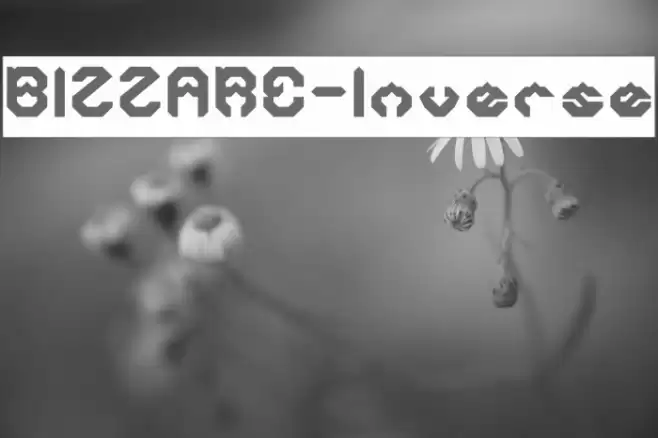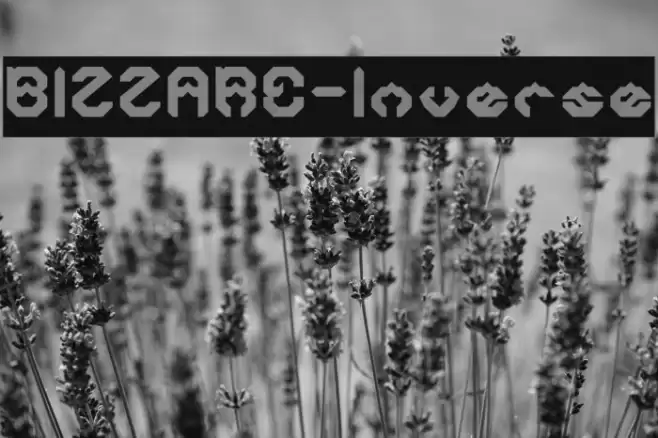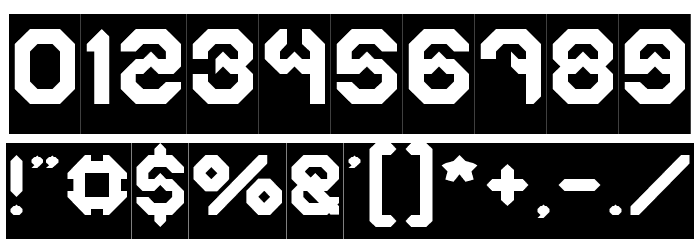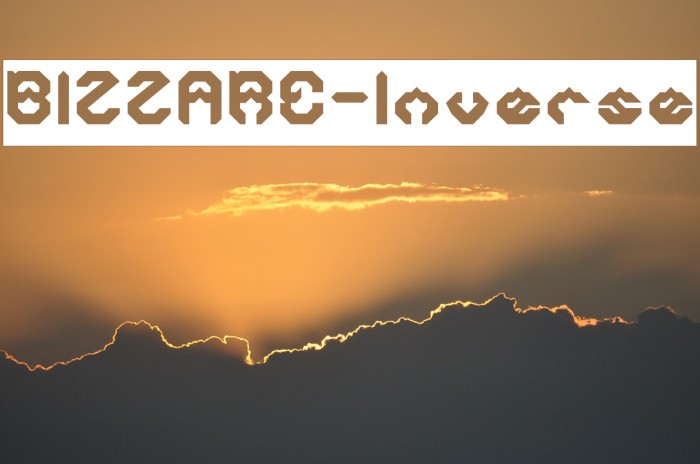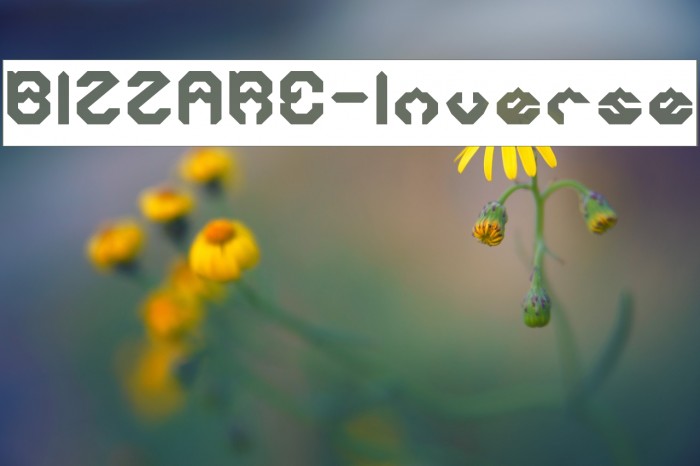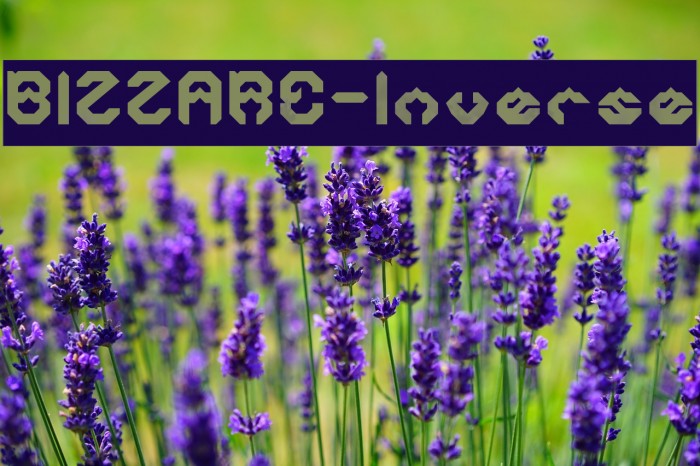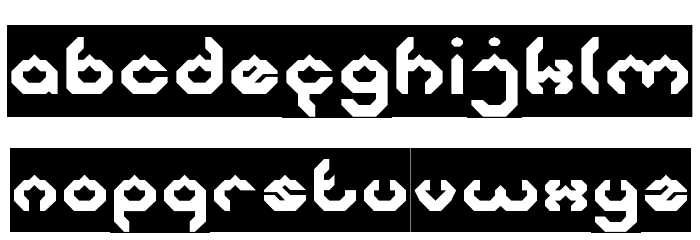
BIZZARE-Inverse Font
BIZZARE-Inverse Description
This font features a bold, geometric design with sharp angles and a blocky appearance. The characters are constructed with a consistent thickness, creating a uniform and cohesive look. The uppercase and lowercase letters maintain a similar style, with distinct angular cuts that give the font a futuristic and edgy feel. The numbers and special characters follow the same design principles, ensuring a harmonious overall appearance. This font's unique style makes it stand out, offering a modern twist on traditional block lettering.
A bold, geometric font with sharp angles and a futuristic style from Uncategorized fonts.
- Proposed Projects: Ideal for sci-fi themed projects, video game titles, posters, and branding that requires a modern and edgy look.